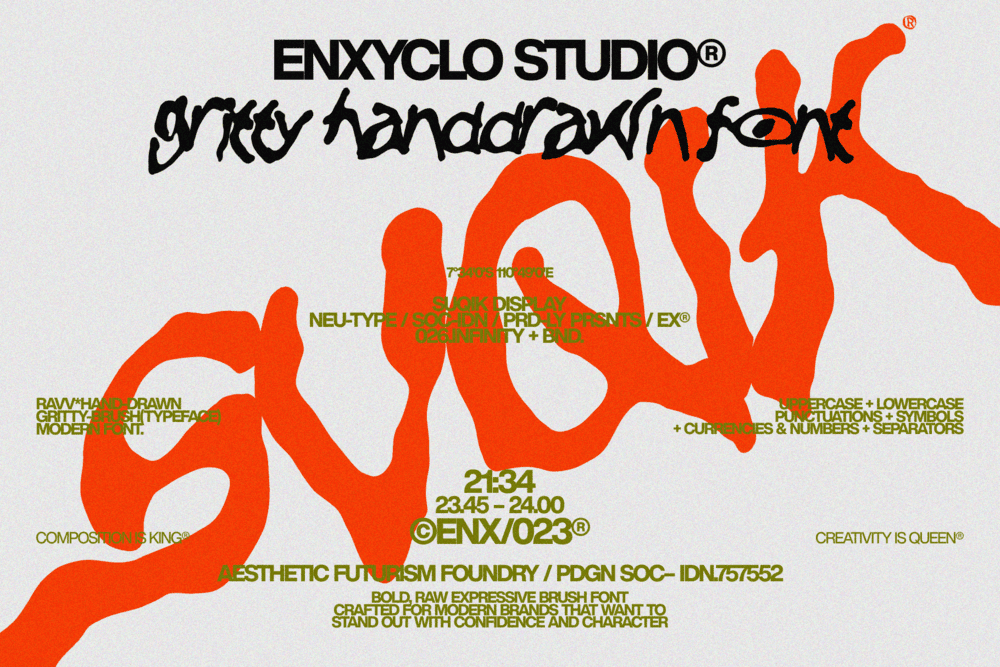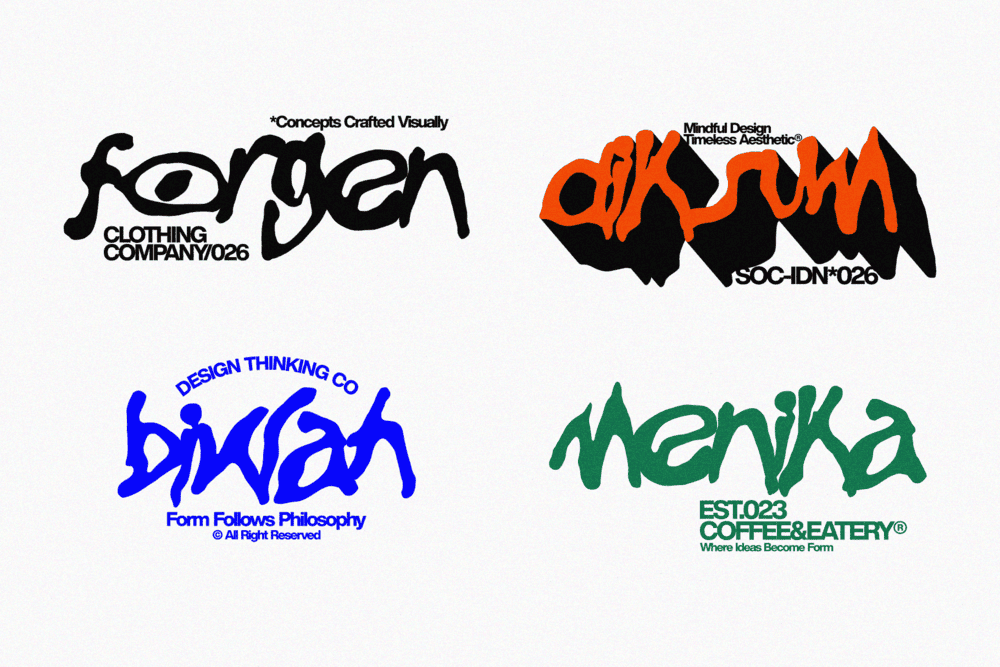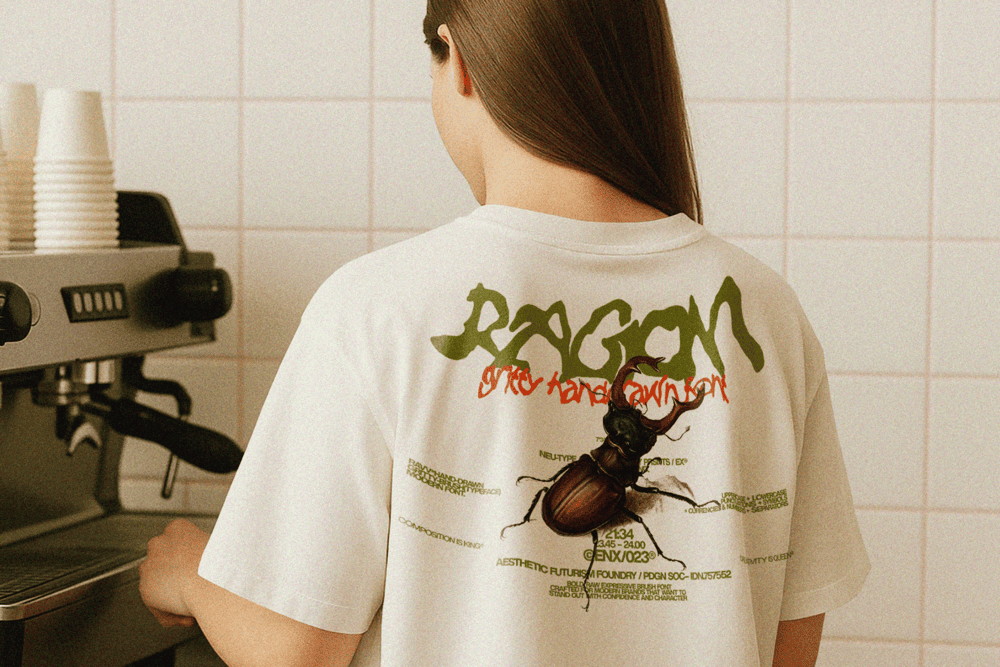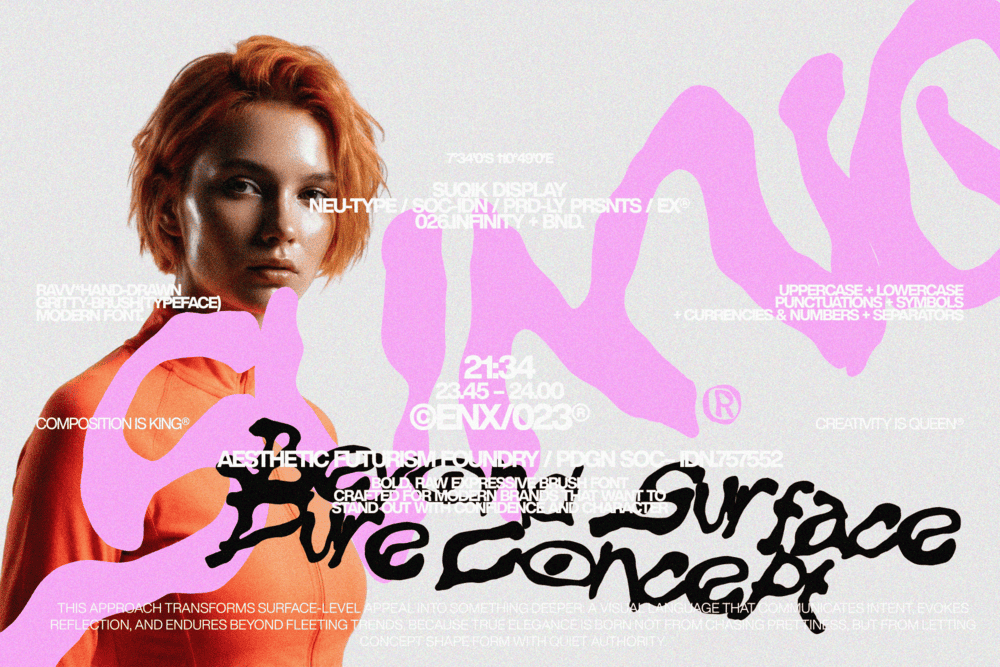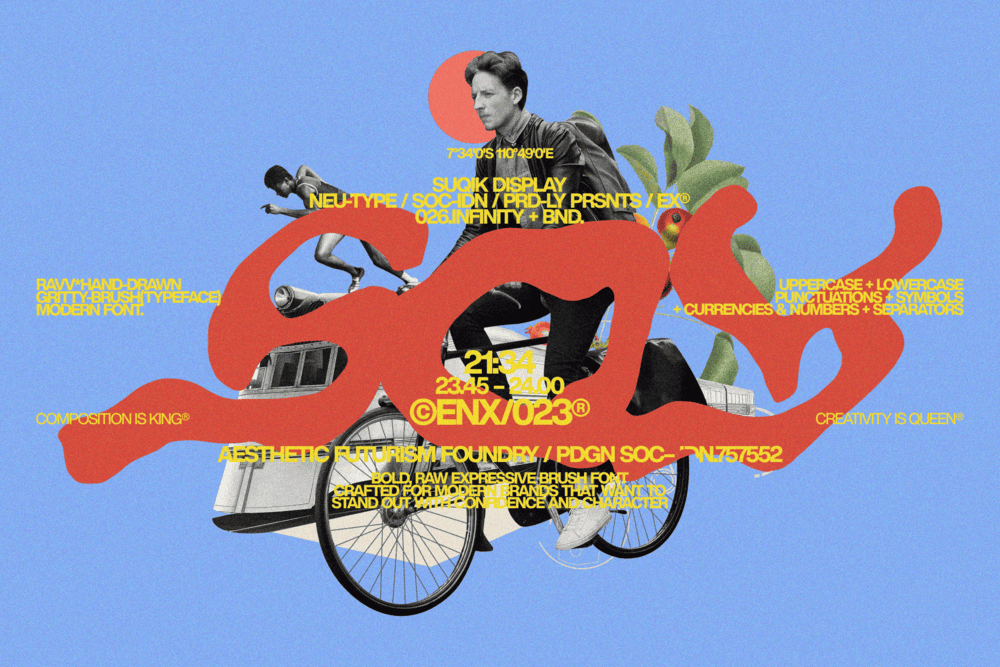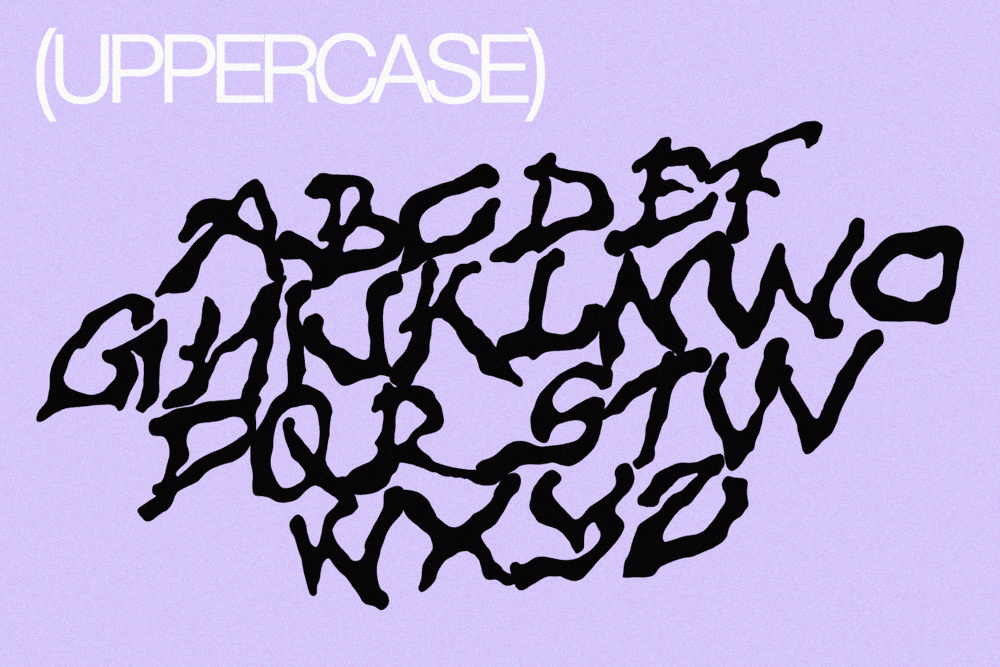
SUQIK is a gritty handdrawn typeface that captures the beauty of imperfection in a bold, modern form. Built from raw, expressive brush strokes and rough textures, SUQIK delivers an authentic handcrafted energy while maintaining a clean and minimal structure suited for contemporary design. This font balances chaos and clarity—its gritty personality feels fearless and organic, yet controlled enough for professional branding. Each letterform carries a raw, expressive attitude that makes your logo, logotype, or brand logo instantly stand out. Designed for modern creatives, SUQIK is a powerful font for logo creation, bold branding systems, and contemporary visual identities. Whether you’re crafting a creative logo for an agency or building a strong brand presence, SUQIK brings texture, character, and confident expression to every design.
It’s imperfect. It’s rough. It’s expressive. And it’s unapologetically modern.
FEATURE
• Uppercase letters
• Lowercase letters
• Punctuation marks
• Symbol set
• Currency symbols
PERFECT FOR
• Creative logo & logotype design
• Modern Logo & Logotype
• Creative Logo Design
• Brand Identity & Branding Systems
• Creative Agency Projects
• Contemporary Packaging
• Poster & Headline Design
• Social Media Branding